Get the best display halloween font for your next project! Discover 28 elite typefaces picked for designers to create stunning, spooky, and haunting graphics.
1. Halloween Drama: Perfect Bold Typeface For Your Next Horror Project
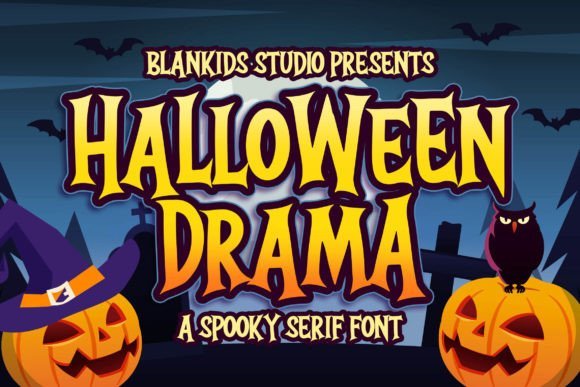
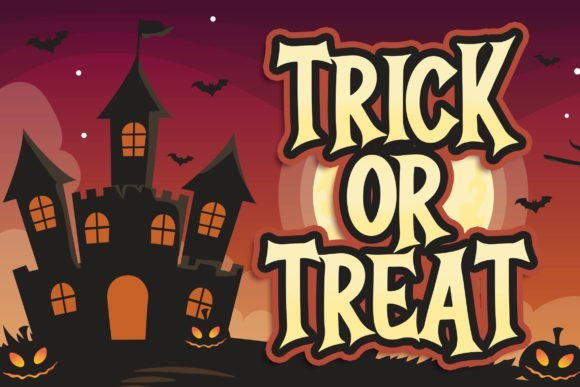
Finding the right balance between spooky and playful can be tricky, but Halloween Drama hits the mark perfectly. I love how the sharp, irregular serifs give off a classic haunted vibe without feeling too aggressive or dark. It has this unique hand-drawn energy that instantly reminds me of vintage horror movie posters or old-school trick-or-treat bags. When I look at the wavy lines and bold weight, I see a typeface that doesn’t just sit on the page—it actually tells a story.
Because of its high-contrast design, I highly recommend using it for book covers, children’s books, and comics where you need characters to pop. It is also an excellent choice for posters, packaging, and merchandise or even seasonal logotypes. The main advantage here is its readability; despite being a stylized display spooky typeface, it remains clear even from a distance, making your headers look professional yet festive.
2. Halloween Groovy: Melt Your Audience Hearts With This Fun Dripping Font
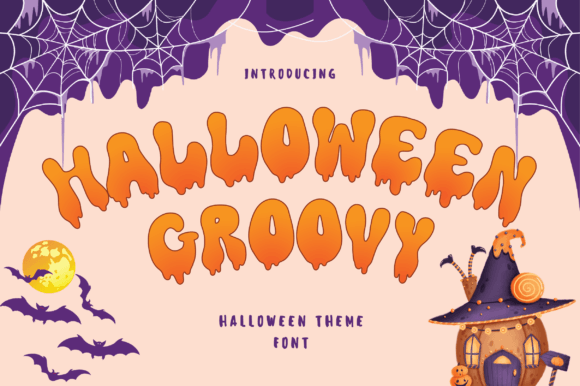
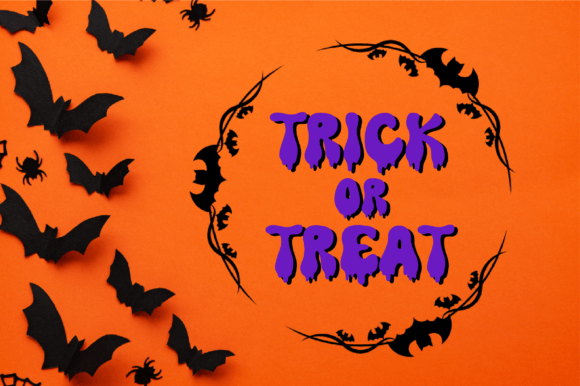
I find that Halloween Groovy perfectly captures that retro, melting wax aesthetic that makes a display halloween font so memorable. It has a fantastic “dripping” effect that feels both mysterious and playful, avoiding the overly sharp edges of more aggressive horror types. The thick, bubbly letterforms give it a bold presence that doesn’t just sit on the background—it actually commands attention with a bit of a psychedelic twist.
I think this style is the perfect choice for horror-inspired projects, festive party invitations, and spooky social media graphics. You could also easily use it for trick-or-treat posters, bold apparel designs, or themed web headers. Its primary advantage is how it balances being spooky and whimsical at the same time, making your work feel curated and fun rather than genuinely terrifying.
3. Spookyman: A Timeless Classic For Your Festive Halloween Graphics
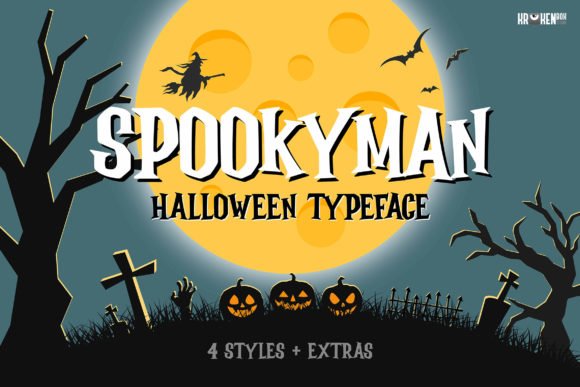
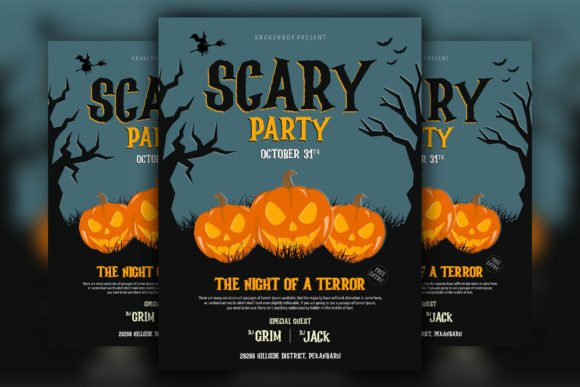
Adding a classic, hand-cut feel to your artwork is easy with Spookyman, a typeface that captures the true essence of October nights. I love how its sharp, slightly irregular edges remind me of traditional woodcut posters or vintage horror film titles. It has a jagged energy that feels both mysterious and grounded, making it more than just your average display halloween font. When I use it, I notice it brings a professional “scary” look that doesn’t feel childish, but rather authentically haunting.
This versatility makes it a fantastic choice for Halloween events, apparel projects, and album covers where you need a strong, bold statement. I also see it working perfectly for logos, branding, and social media posts or even high-end fashion layouts that want a dark edge. The real advantage of Spookyman is its readability across magazines and advertisements; it maintains its horror charm without sacrificing the clarity of your message.
4. Halloween Font: A Must Have Display Halloween Font For Seasonal DIY Crafts
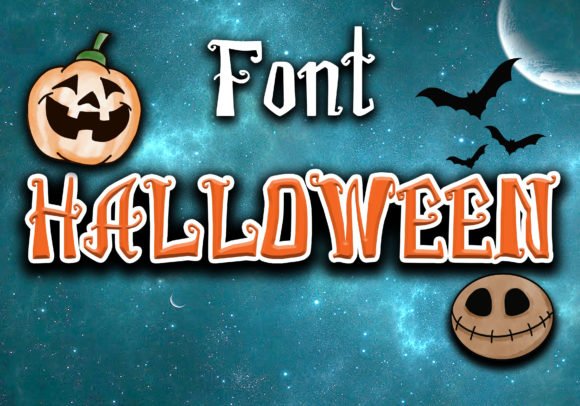
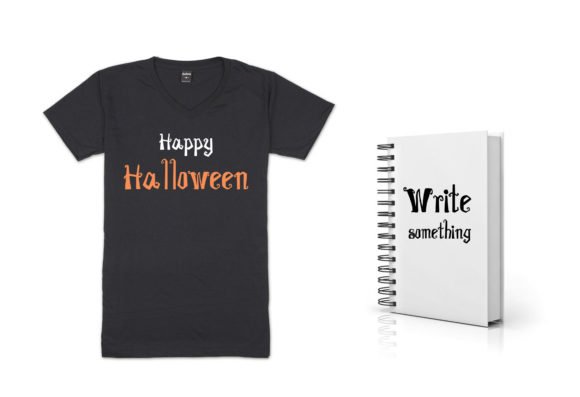
I love how Halloween immediately sets a playful yet eerie mood with its thick, hand-drawn letterforms. It features charmingly curled terminals and irregular heights that give it a “creepy-cute” personality, making it a standout choice for any display halloween font collection. When I see these bold characters, they remind me of classic Tim Burton aesthetics—full of character and just the right amount of spooky magic to catch the eye without being too dark.
In my opinion, this typeface is perfectly suitable for any Halloween-related project or crafty idea you have in mind. I can easily see it being used for t-shirt designs, notebook covers, and party invitations. It also works wonders for greeting cards, seasonal banners, and DIY decorations. The main advantage is its heavy weight, which ensures your message stays readable even against busy, mystical backgrounds.
5. Groovy Halloween: Retro Display Lettering For Your Haunted Seasonal Crafts
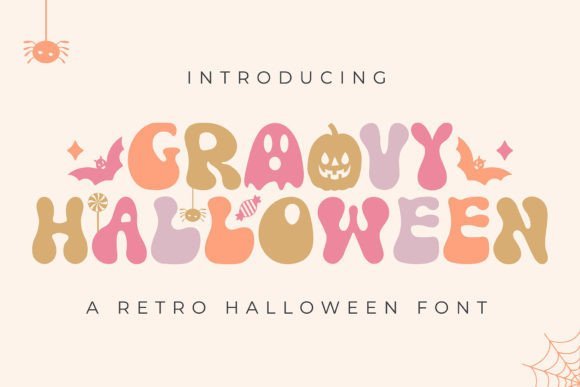
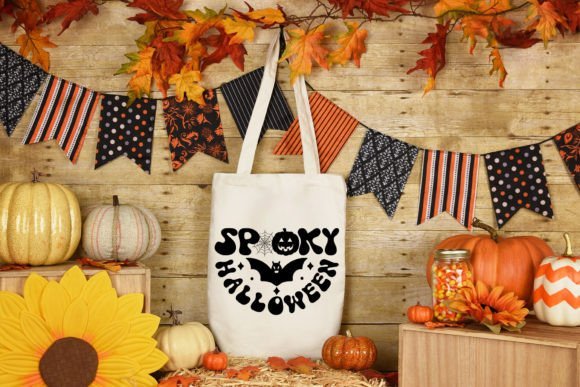
Bringing a nostalgic yet spooky vibe to your canvas is effortless with Groovy Halloween. I am absolutely charmed by how this typeface blends 1970s psychedelic curves with classic seasonal icons like ghosts and pumpkins integrated right into the letterforms. It’s a stylish holiday display font that feels soft and approachable, yet it carries enough weight to anchor any festive design. I find that its playful retro energy makes it stand out from the typical jagged horror fonts we see every year.
Because of its unique character, I highly recommend this for crafting, branding, and decorating your seasonal space. It works wonders for greeting cards, retro designs, and book covers, but I also love seeing it on t-shirts, mugs, and stationery. Whether you are working on magazines or headlines, the advantage here is the instant personality it adds—it’s bold, legible, and perfectly captures that “spooky-chic” aesthetic that is so popular right now.
Final Thoughts
Whether you aim for playful or terrifying, these 28 fonts are the ultimate design weapons. Embrace the macabre and let your imagination run wild to achieve unparalleled results in all your spooky graphic endeavors.